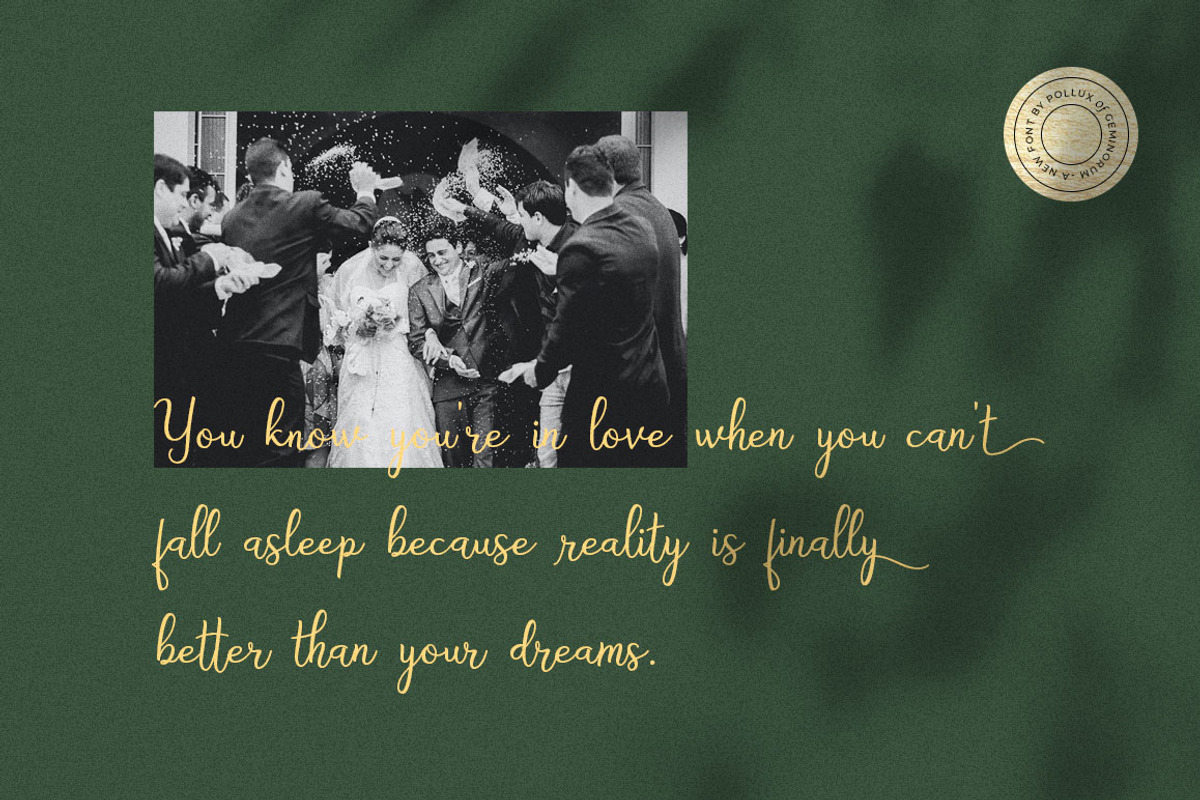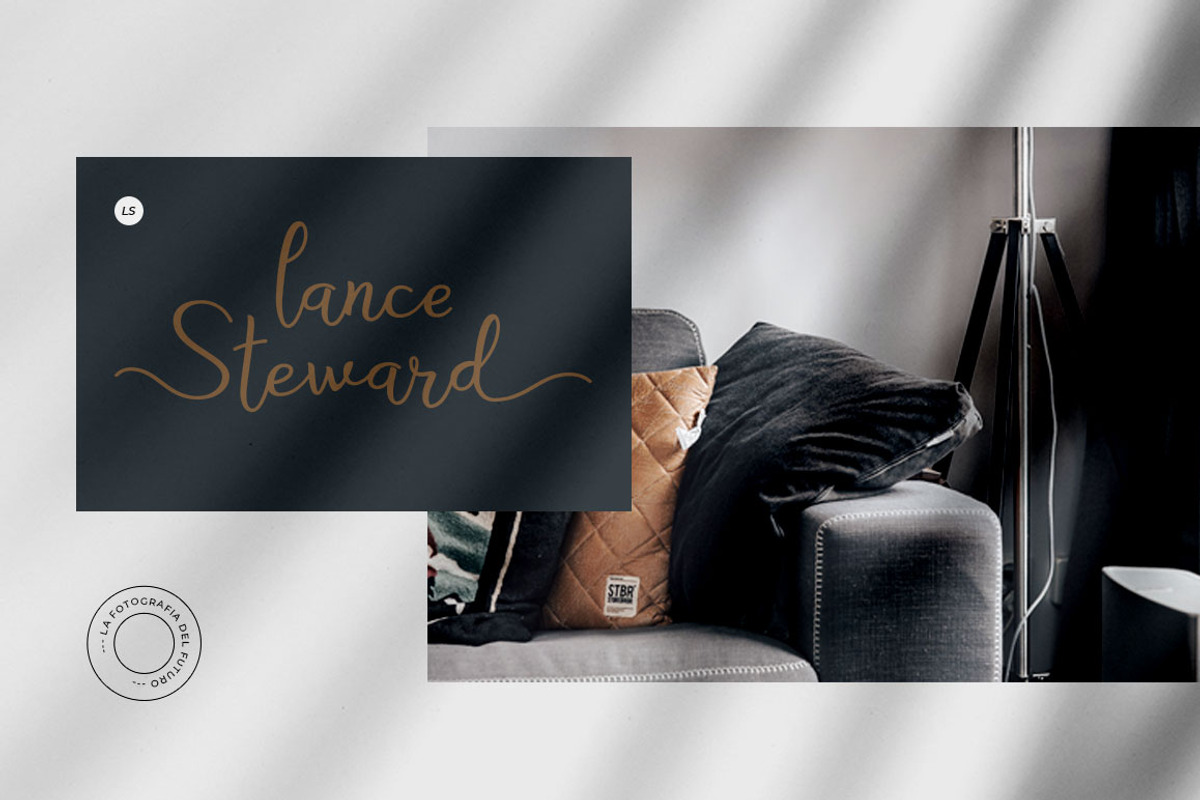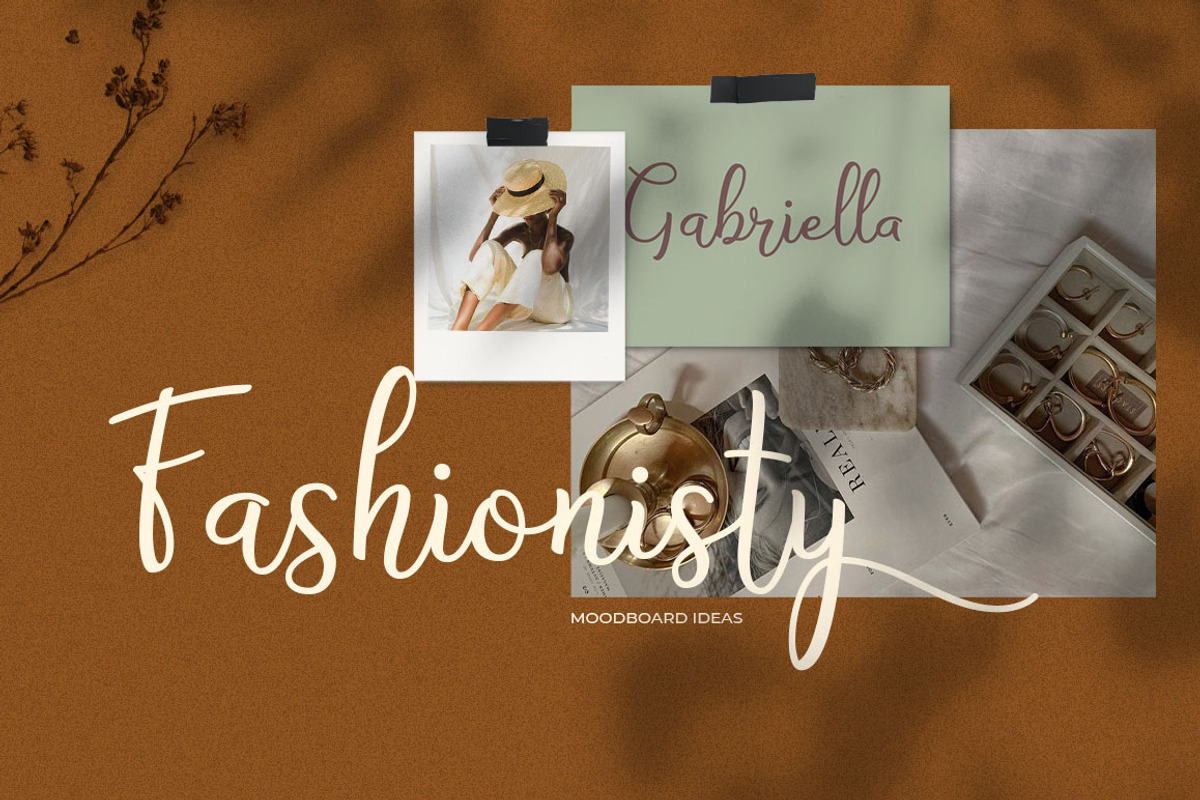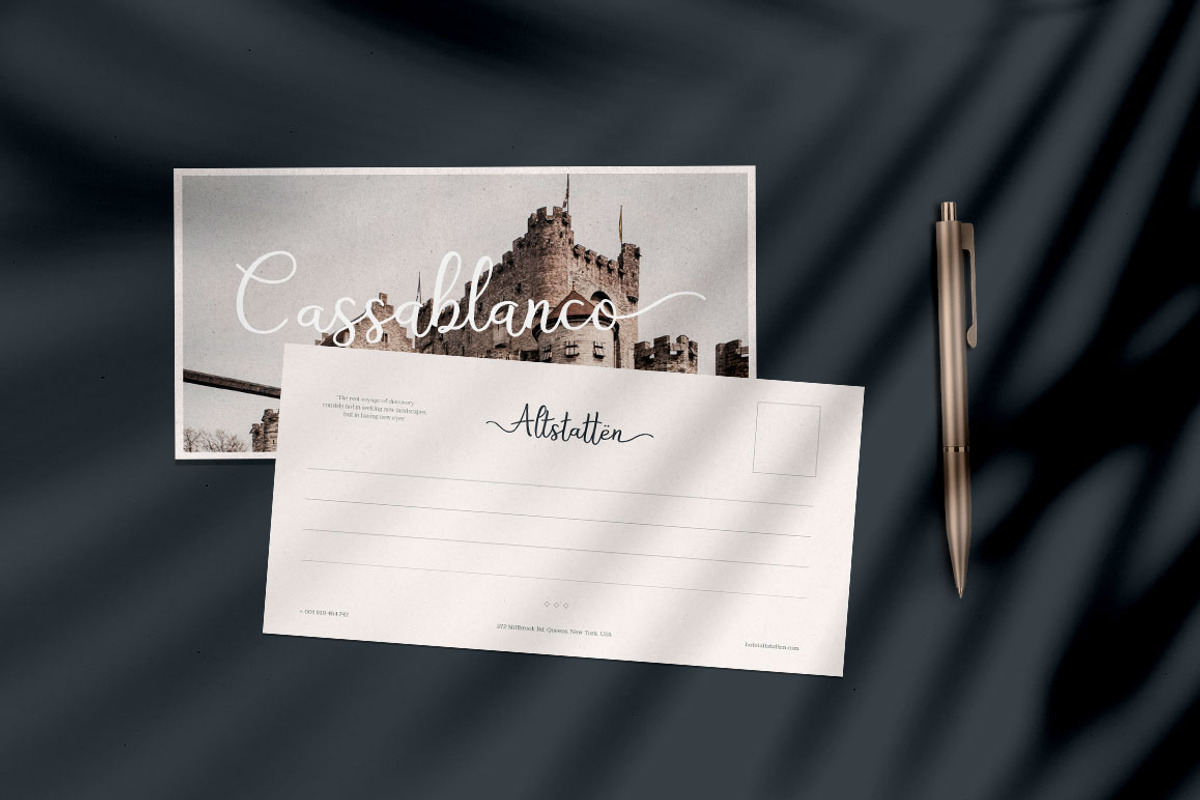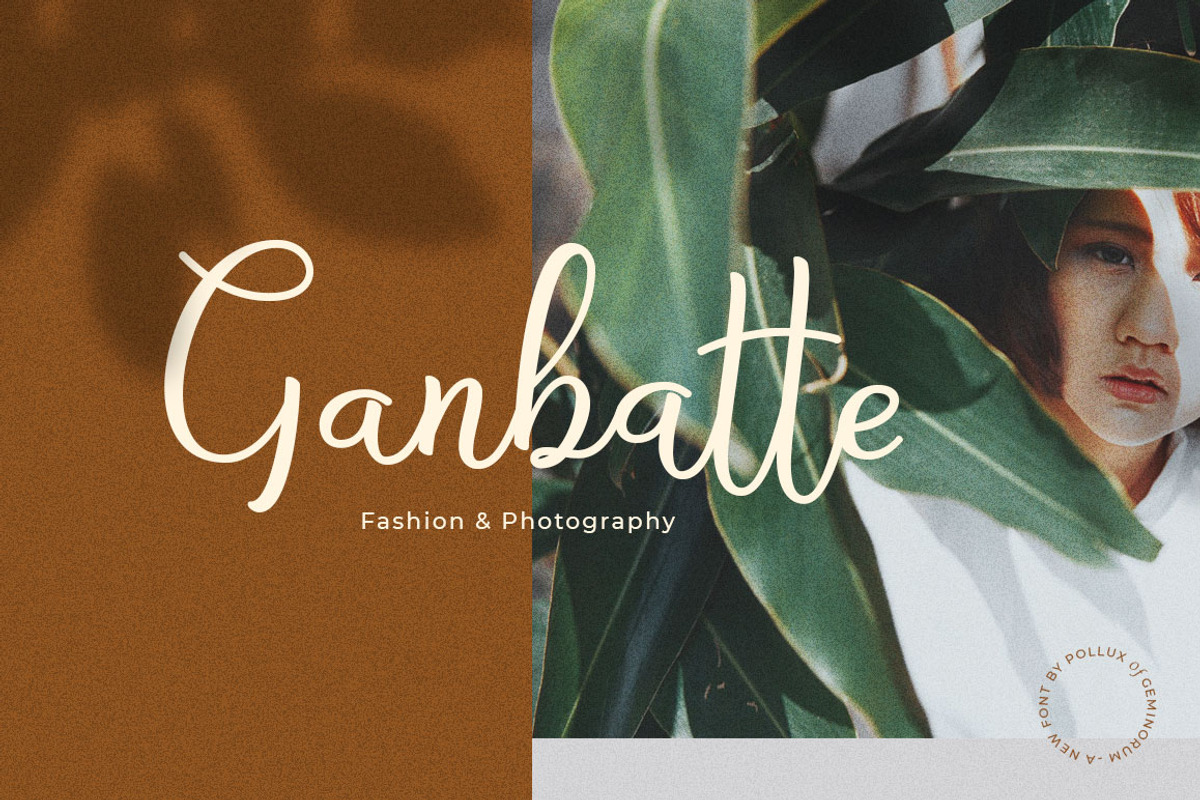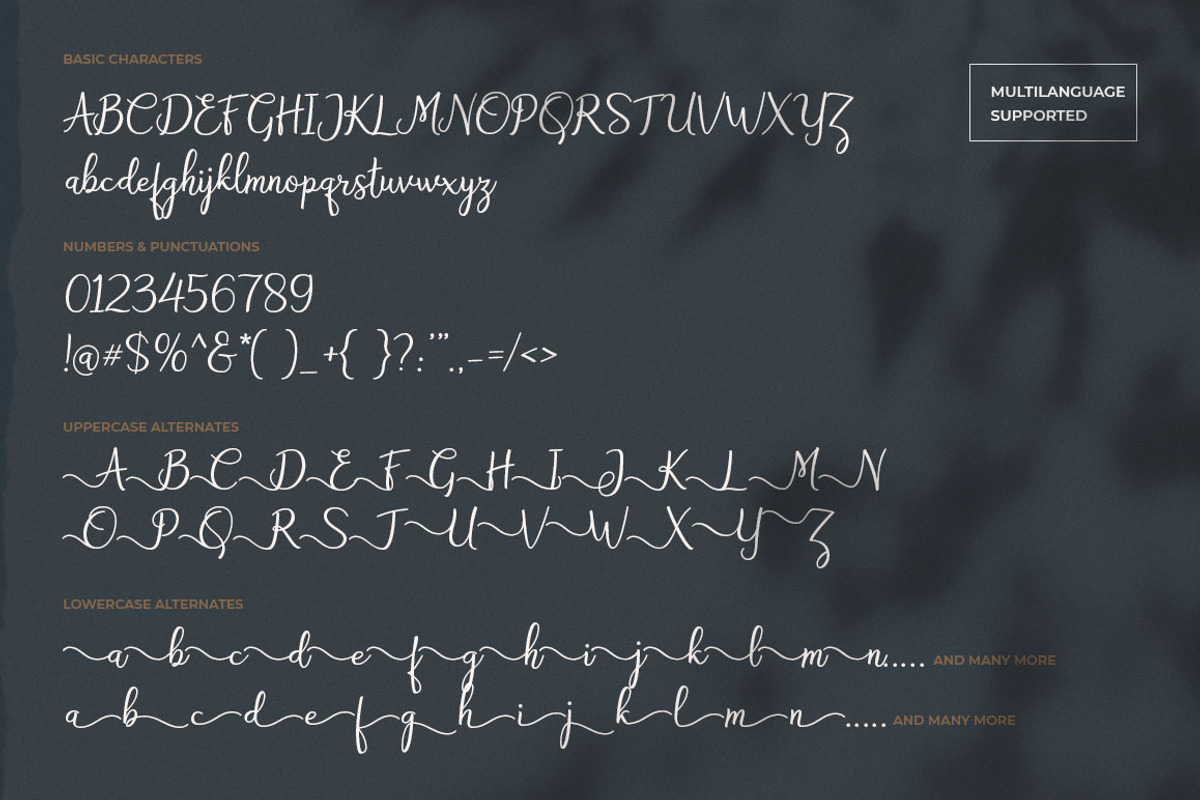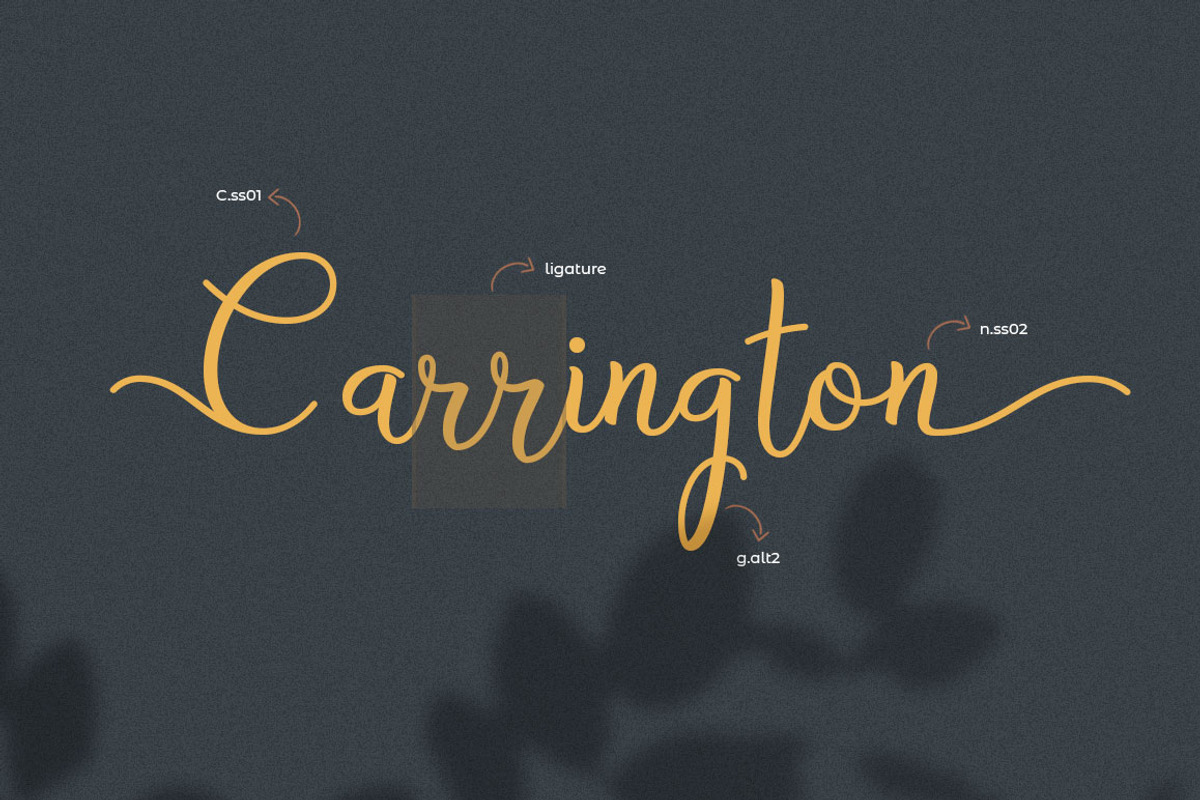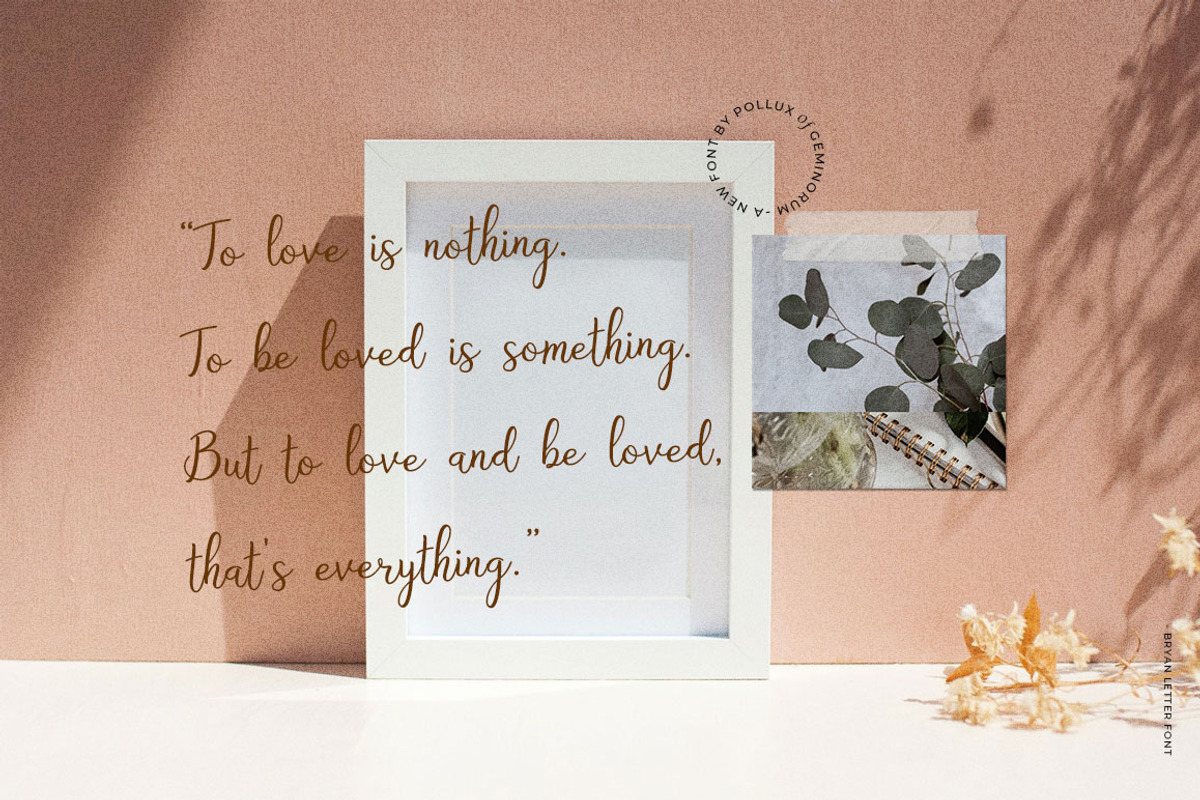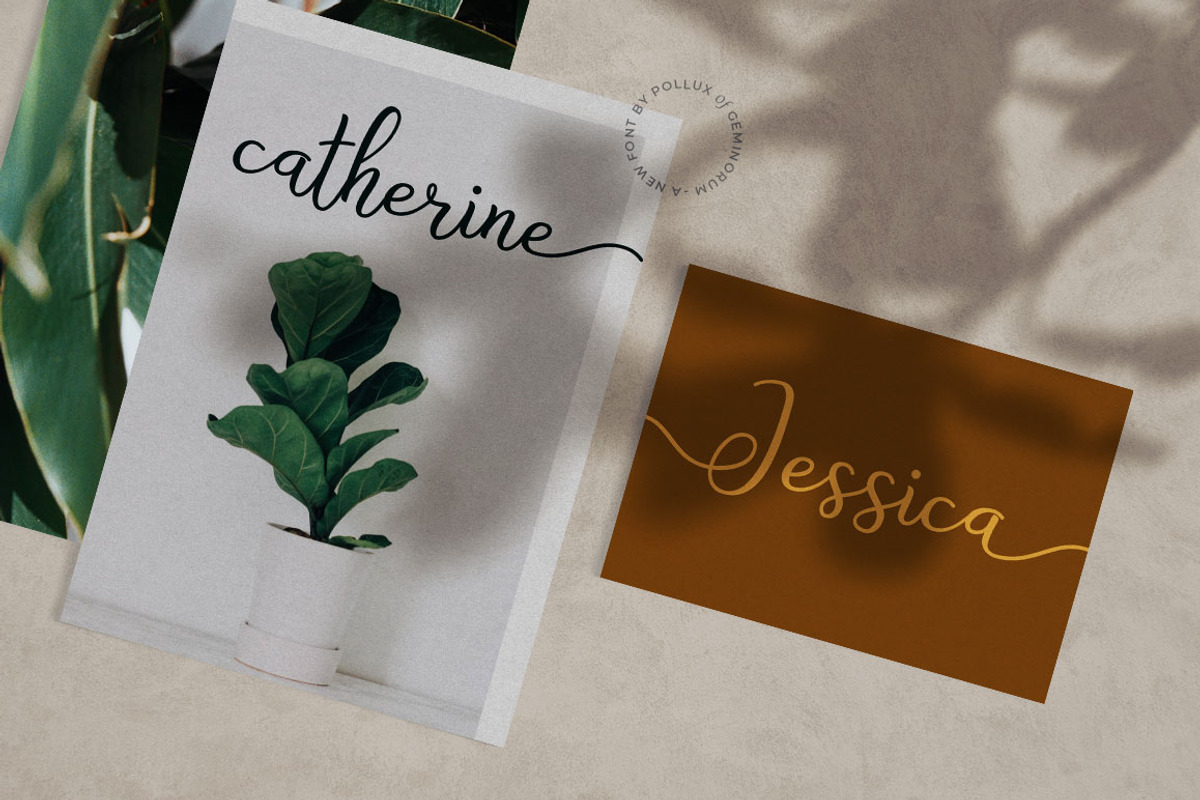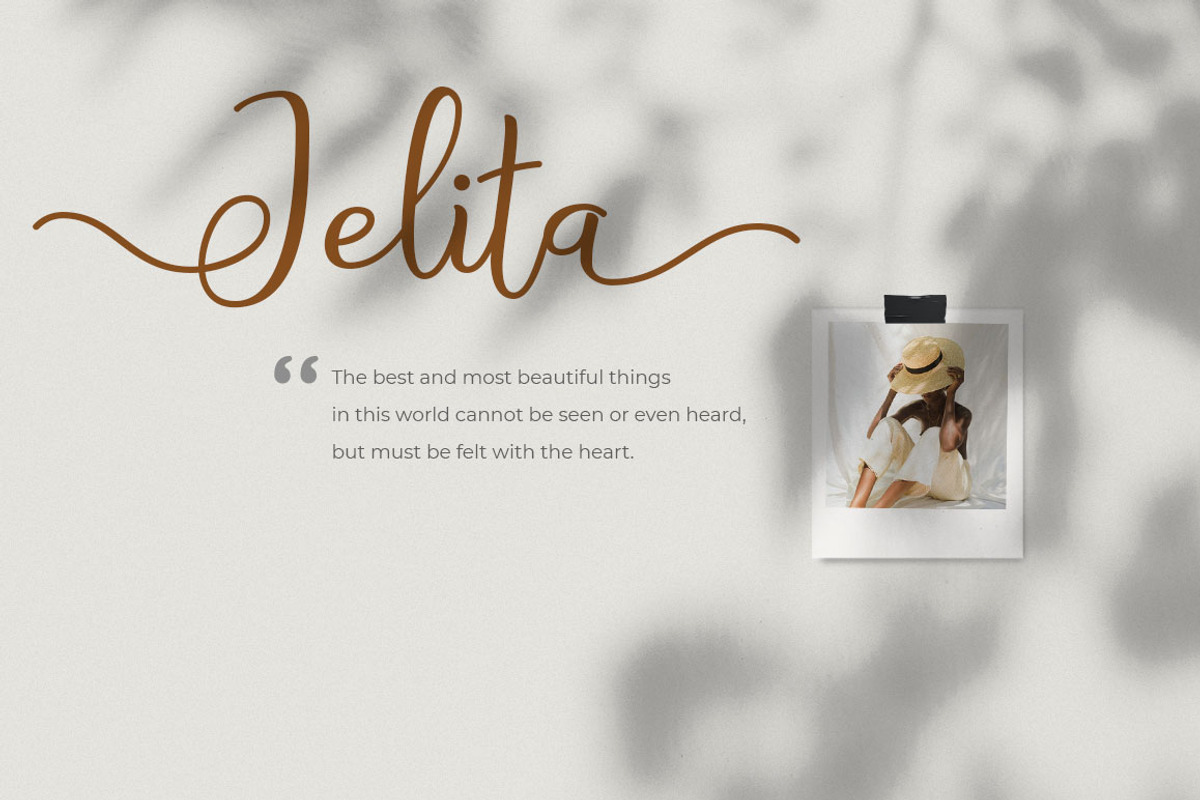
Bryan Letter
Bryan Letter is an exquisite handwritten font, masterfully designed to become a true favorite. It maintains its classy calligraphic influences while feeling contemporary and fresh. Fall in love with it and bring your projects to the highest levels!